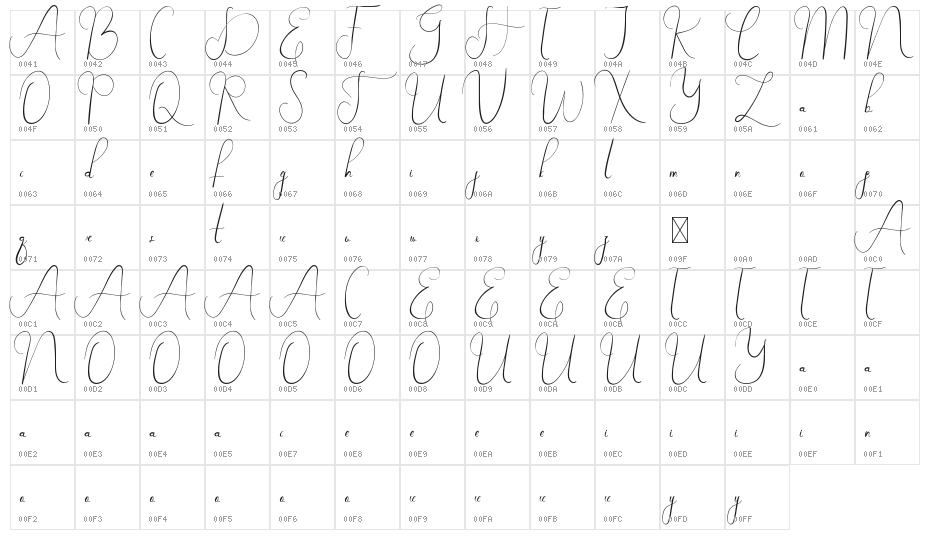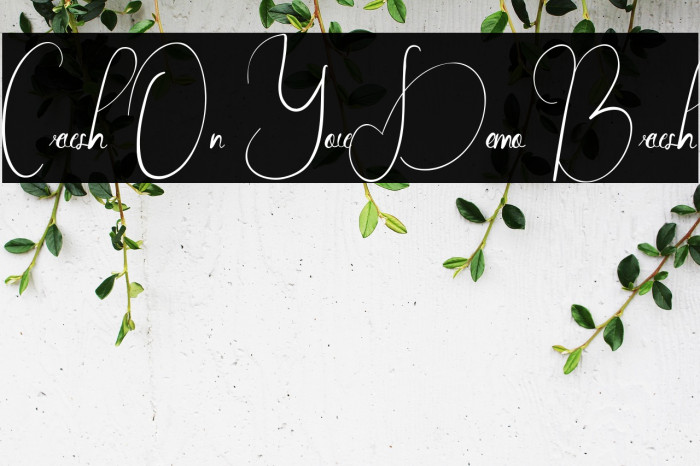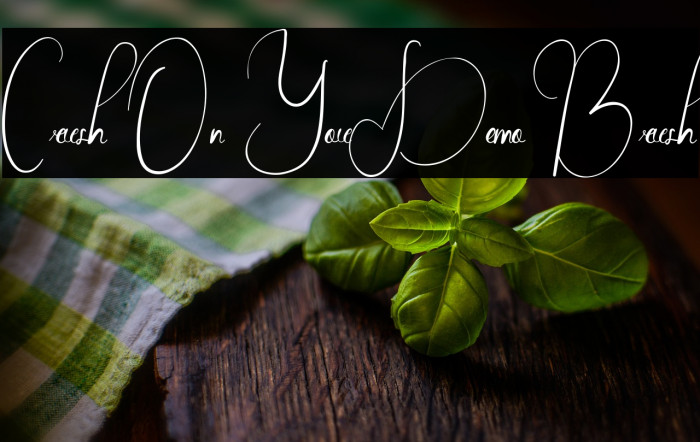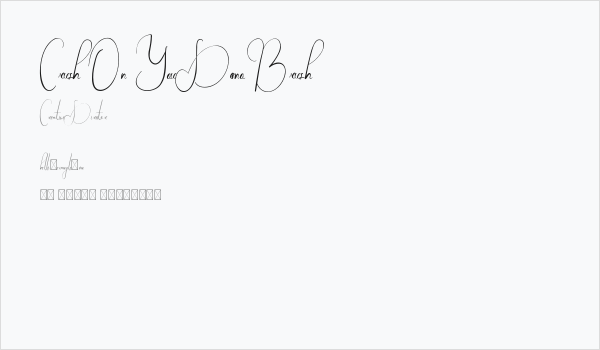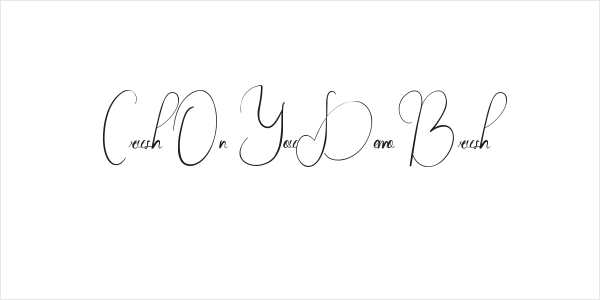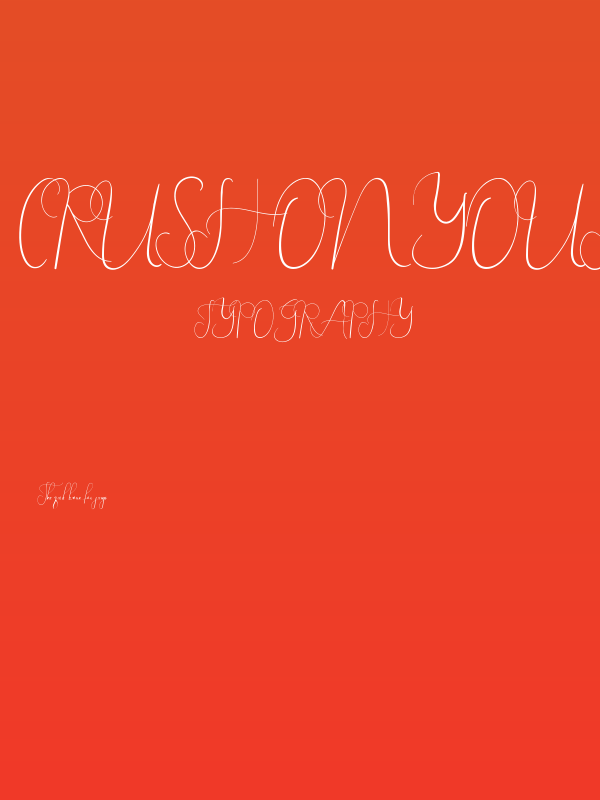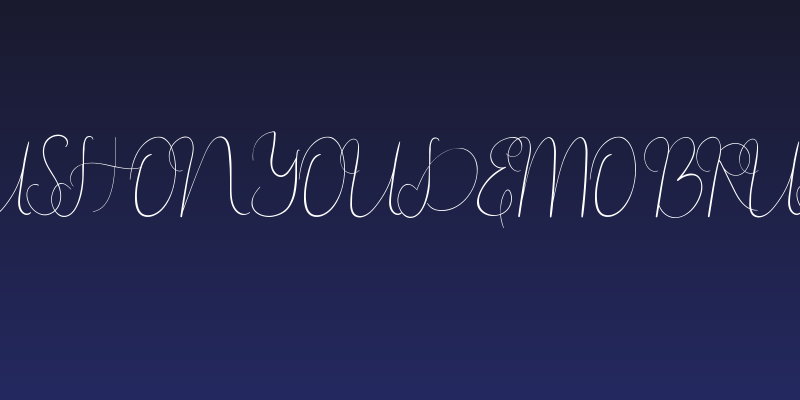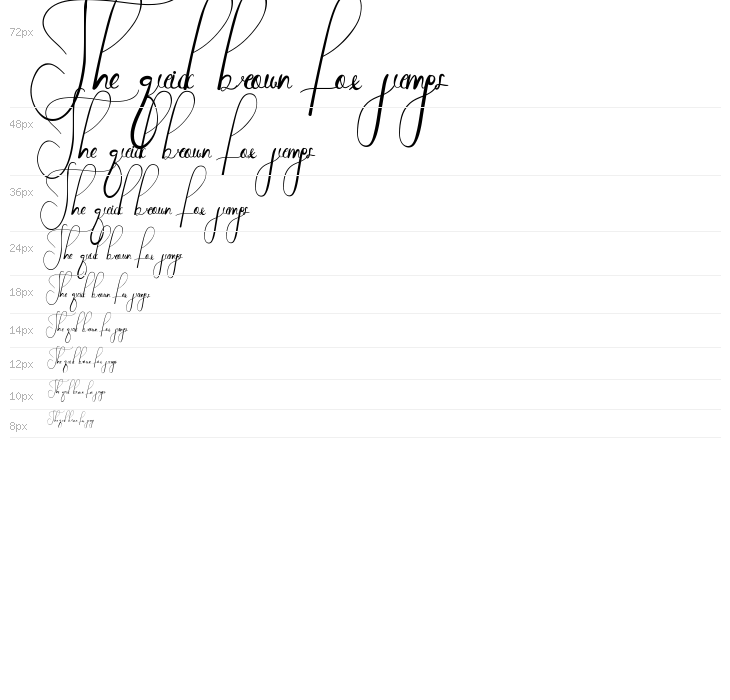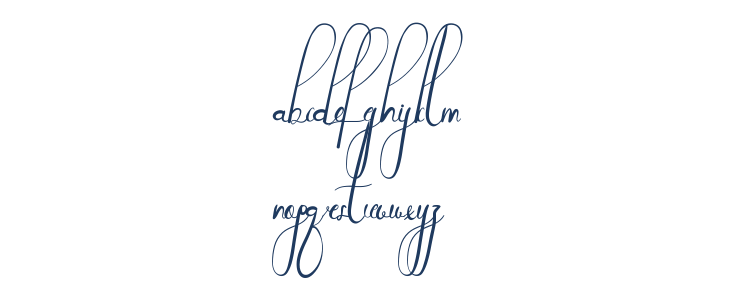
Crush On You Demo Brush Font
Crush On You Demo Brush Description
This font features an elegant and flowing script style, characterized by its smooth, cursive strokes and artistic flair. The uppercase letters are tall and graceful, with sweeping curves that give a sense of motion and fluidity. The lowercase letters maintain a consistent style, with elongated ascenders and descenders that enhance the font's decorative appeal. The numbers and special characters are designed to match the overall aesthetic, providing a cohesive look. This font is ideal for projects that require a touch of sophistication and creativity, such as invitations, greeting cards, and branding materials.